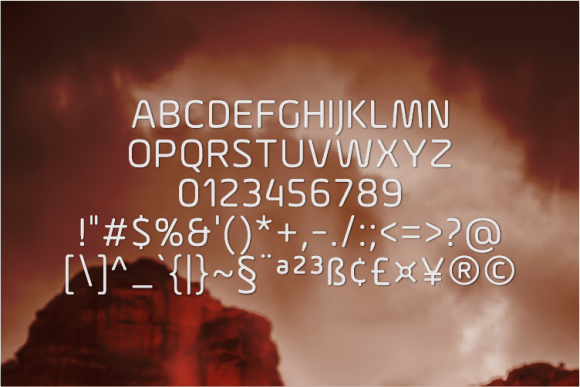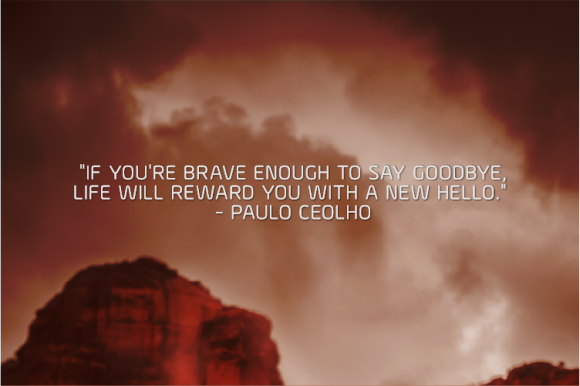
Introduction to Replune Font
You know that moment when a design idea hits you, and you can’t wait to bring it to life? The spark of creativity ignites, and you start envisioning the perfect typography, colors, and textures. For designers, finding the right font can be the difference between a good project and a great one.
That’s where Replune Font comes in – a stunning sans serif font that’s designed to elevate your creative project to the next level. With its high-quality design, Replune Font is a valuable resource for designers who want to create beautiful headings, gorgeous invitations, and stunning logos. Whether you’re working on a wedding invitation or a display, Replune Font is the perfect addition to your design arsenal.
Key Features of Replune Font
- Comes in a transparent background version, allowing for easy integration into various design elements.
- Designed to be highly customizable, with multiple styles and weights available for a cohesive look.
- Perfect for designers seeking a versatile and stylish font to elevate their creative projects.
Honest Review: Replune Font
As a designer, I’m always on the lookout for high-quality design resources to elevate my creative projects. The Replune Font is one such resource that caught my attention. I decided to give it a try and share my honest review.
- Unique and Creative Style: The Replune Font boasts a distinctive and modern design that sets it apart from other fonts. Its unique style makes it perfect for designers looking to add a touch of creativity to their projects.
- High-Quality Typography: The font is well-designed, with crisp and clear typography that makes it easy to read. The high-quality design ensures that the font looks great even at larger sizes.
- Transparent Background: The Replune Font comes with a transparent background, making it easy to overlay on images or use as a design element in creative projects.
While the Replune Font is a great addition to any designer’s toolkit, there are a few limitations to consider. The font is a bit on the thin side, which may not be suitable for all types of projects. Additionally, the font is not as versatile as some other fonts on the market.
Overall, I’m impressed with the Replune Font. It’s a great resource for designers looking for a unique and high-quality font to add to their creative projects. The transparent background and high-quality typography make it a valuable addition to any design arsenal. While it has some limitations, I would definitely recommend the Replune Font for designers who want to take their projects to the next level. Plus, it’s available for free download, making it an even more attractive option.
Tips for Getting the Most Out of Replune Font
Use the Replune Font with a transparent background to create a clean and modern design. Experiment with different font sizes and styles to achieve the perfect look for your creative project. The Replune Font is a free download, making it a great design resource for any project.
The Replune Font is perfect for creating logos, business cards, and other marketing materials. It is also great for creating presentations, documents, and other visual content. With its high quality design and transparent background, the Replune Font is a great design resource for any creative project.